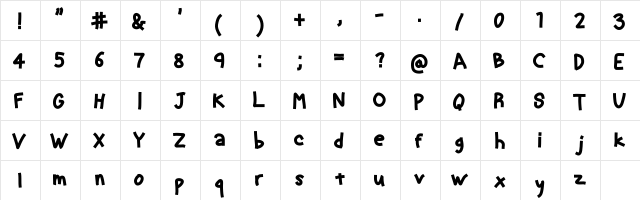
Animated Medium Font Preview
Animated Medium
Animated Medium Font Details
Design Context for Animated Typeface
Animated is a composed and adaptable typeface that performs quietly and consistently across a wide range of design contexts.